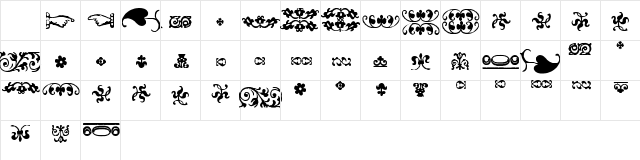
Complete IM FELL FLOWERS 2 Regular glyph index. Displaying only characters natively supported by IM FELL FLOWERS 2 Regular font.
IM FELL FLOWERS 2 is a composed and adaptable typeface that performs quietly and consistently across a wide range of design contexts.